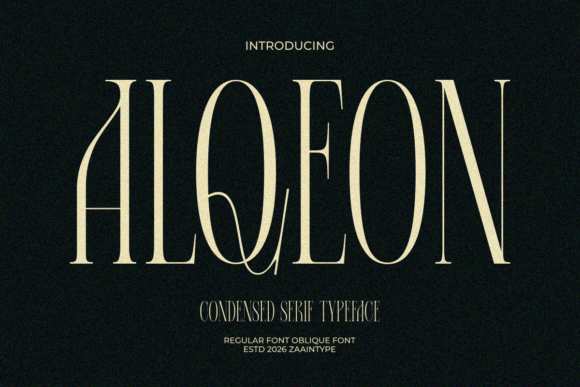
Discover the Elegance of Alqeon Font: A Designer’s New Best Friend
I still remember the frustration of working on a high-end fashion brand project, searching for the perfect font that exuded sophistication and modernity. The client wanted a font that would make their brand stand out, but not look too flashy or over-the-top. After hours of scouring through font libraries, I stumbled upon Alqeon Font, and it was love at first sight! ✨ In this article, I’ll share my experience with Alqeon Font, its features, and how to make the most of it in your designs.
An Honest Review of Alqeon Font
What I Love About Alqeon Font
• ✨ Modern yet elegant: Alqeon Font strikes the perfect balance between firmness and refined detail, making it perfect for premium and professional designs.
• ✅ Clean and sophisticated: Its precise curves create a harmonious visual rhythm, ensuring readability at various sizes.
• 💡 Versatile: Alqeon Font works effectively as a strong headline and as aesthetically pleasing supporting text.
While Alqeon Font is an excellent choice for many designs, there are a few things to keep in mind: ⚠️
• ⚠️ Not ideal for body text: While readable, Alqeon Font shines in headlines and titles; for longer texts, consider a complementary font.
The Story Behind Alqeon Font
Alqeon Font was designed with the goal of creating a modern, elegant font that would cater to the needs of designers seeking a premium look. Its creator aimed to craft a font that would exude sophistication and refinement, while maintaining readability and versatility. Although the designer’s story is shrouded in mystery, their work has undoubtedly made a significant impact on the design community.
Font Name Alqeon Font
Author zaaintype
What is Alqeon Font best suited for? Alqeon Font is ideal for branding, editorial, fashion, and digital designs that require a premium and professional feel.
Is Alqeon Font suitable for body text? While readable, Alqeon Font shines in headlines and titles; for longer texts, consider a complementary font.